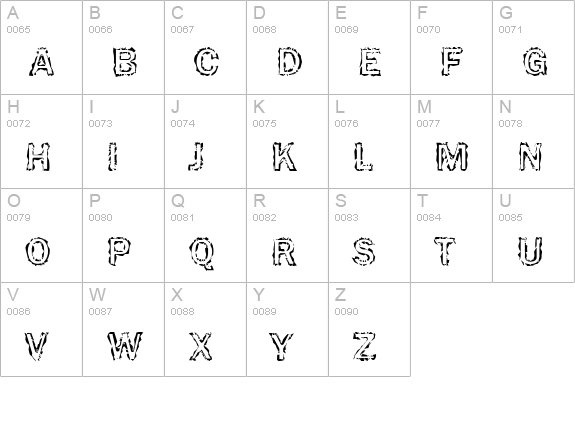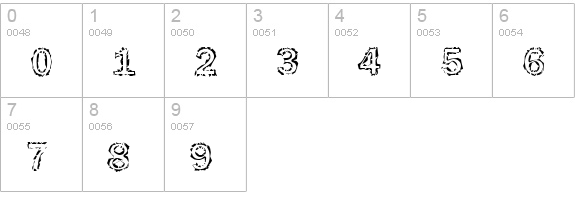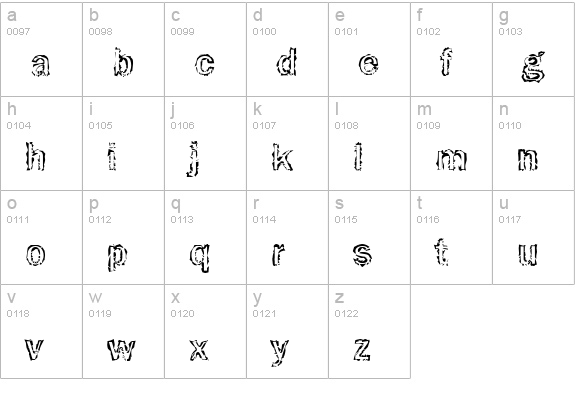
Funky31-Bold Font Details
Funky31-Bold is a strong, high-contrast variant in the Funky31 typeface family \xE2\x80\x94 well suited to headlines, attention-grabbing titles, and strong calls-to-action.
Funky31-Bold font is a lively and vibrant typeface that exudes a sense of fun and playfulness. With its bold and dynamic letterforms, this font is perfect for making a statement or adding a touch of whimsy to your designs. Whether you're creating posters, flyers, or social media graphics, Funky31-Bold is sure to grab attention and leave a lasting impression. Best of all, Funky31-Bold is available for free download at FontsMarket.com. This means you can easily add this eye-catching font to your collection without breaking the bank. Don't miss out on the opportunity to enhance your projects with the unique style of Funky31-Bold - download it today and let your creativity shine!